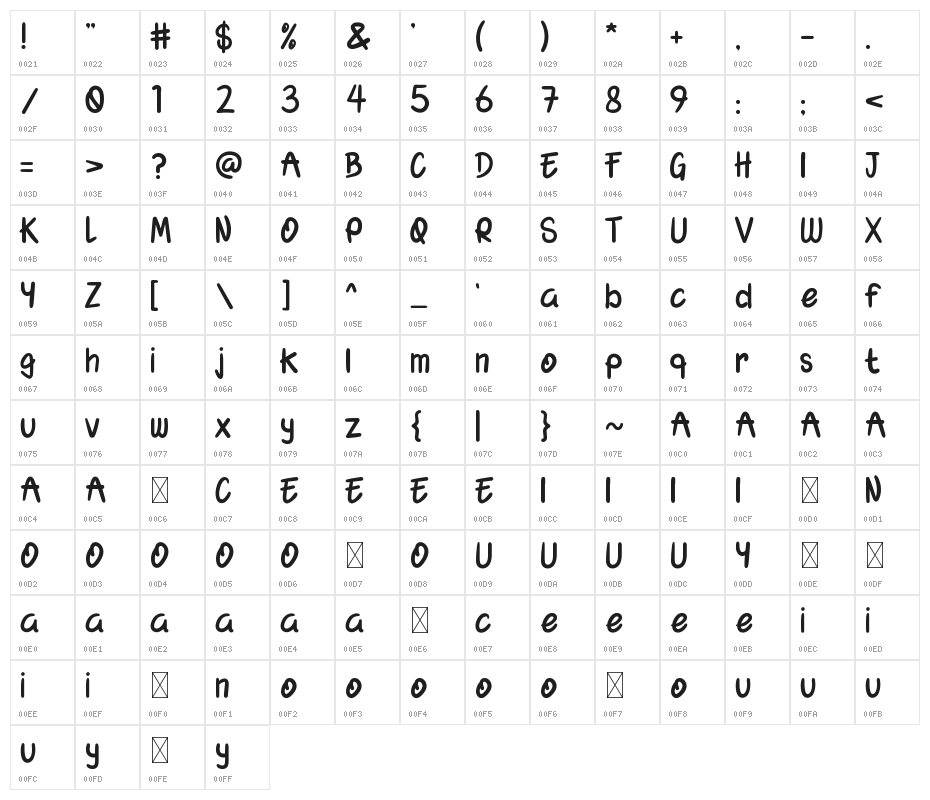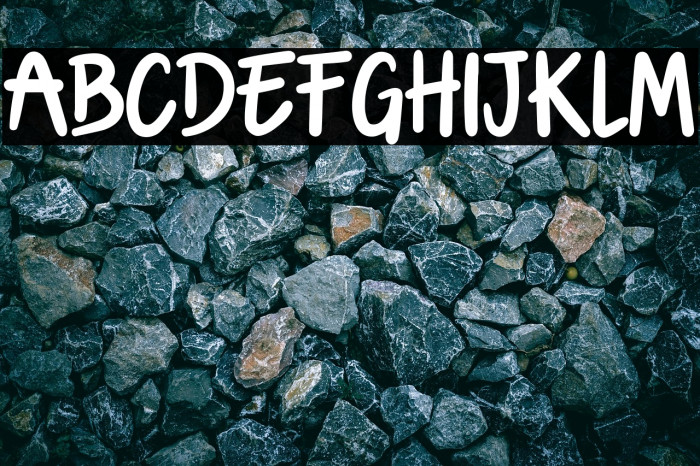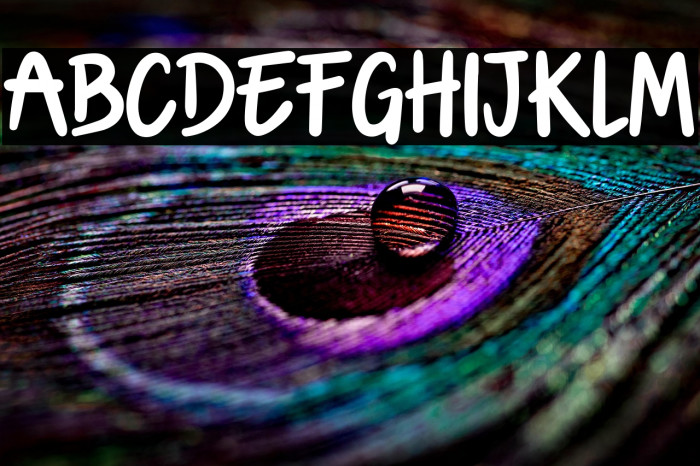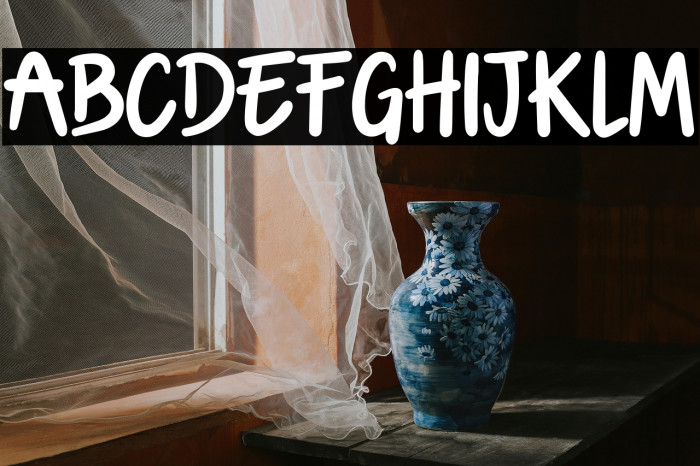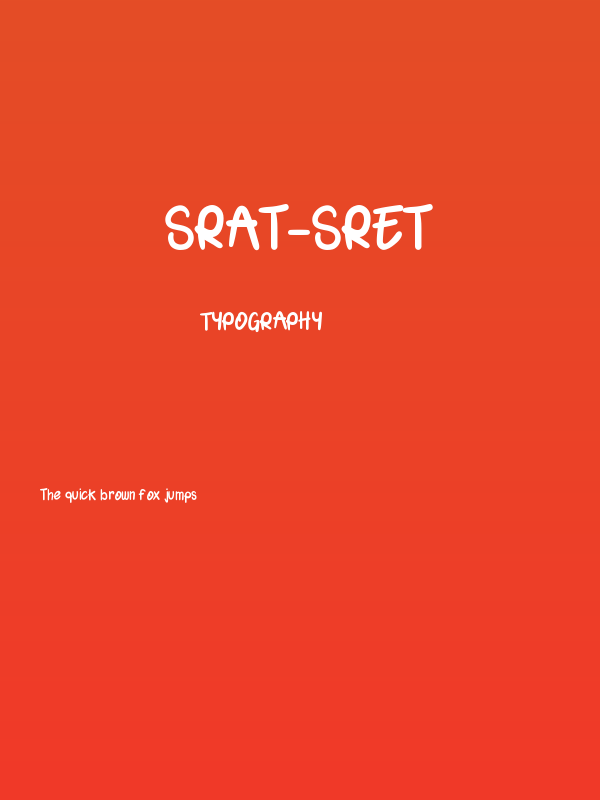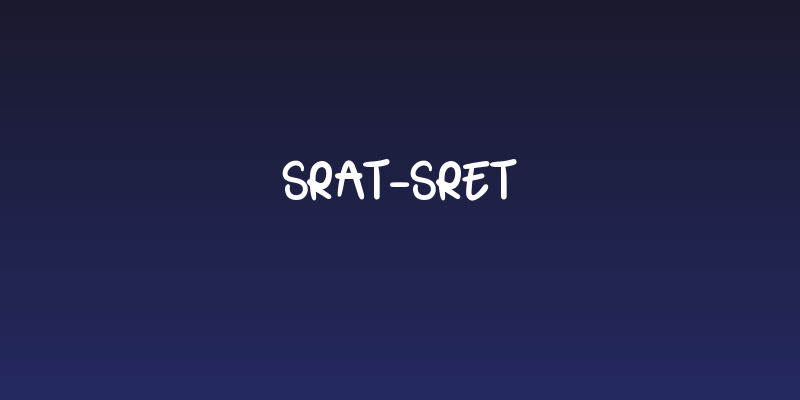
Srat-Sret Font
Srat-Sret Description
This playful and bold font features rounded, smooth edges with a handwritten style that exudes a casual and friendly vibe. The characters are slightly tilted, giving them a dynamic and informal appearance. The uppercase and lowercase letters maintain a consistent style, with the lowercase letters being slightly smaller and more rounded. The numbers and special characters follow the same playful aesthetic, making the font versatile for various uses. Its thick strokes and uniform weight provide excellent readability, while the slightly wide character spacing adds to its approachable feel.
| Proposed Projects | Ideal for children's books, playful branding, casual invitations, and social media graphics. |